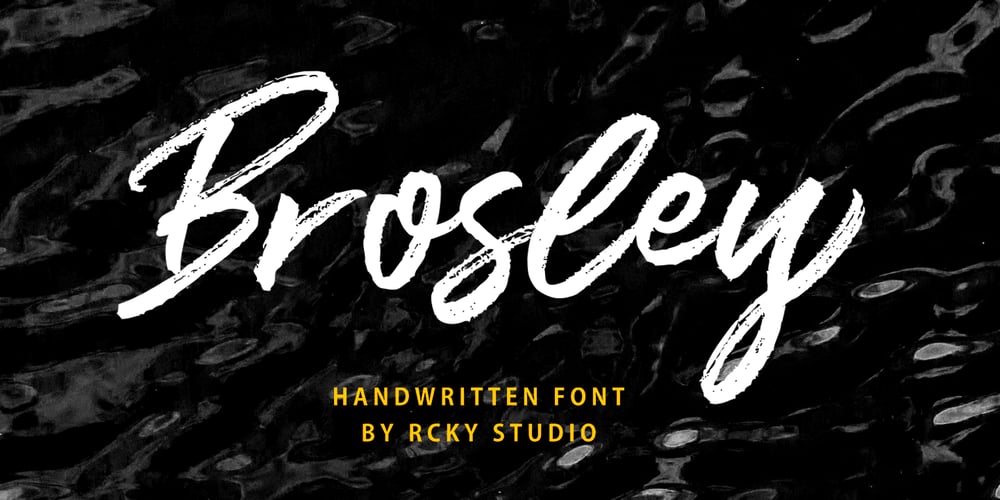
Brosley Font Family was designed by Rizki Agam Fonna and published by RCKY Studio. Brosley contains 2 styles and family package options. Brosley is a beautiful hand-painted font, a contemporary approach to design and unique in each letter. Suitable for use in title designs such as clothing, invitations, book titles, stationery designs, quotes, branding, logos, greeting cards, T-shirts, packaging designs, posters, and more. Brosley contains a complete set of lowercase, uppercase, alternative, binder, punctuation, numbers, and multi-lingual support. Thank you for your purchase!